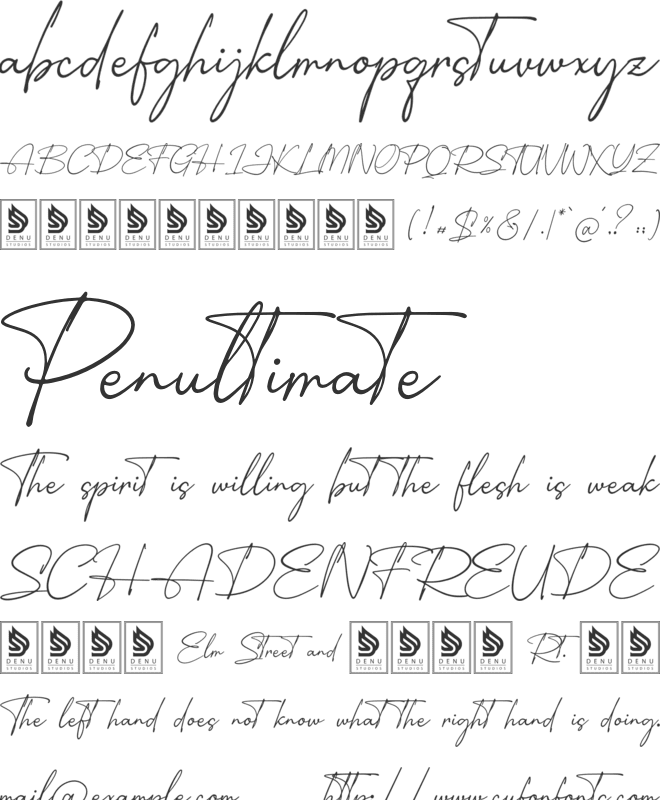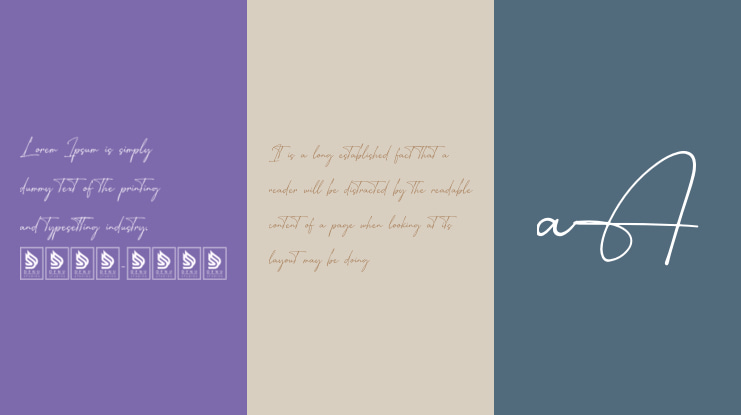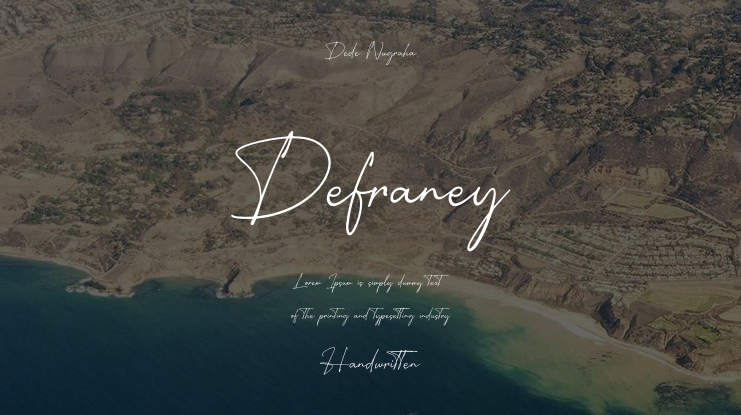
Defraney | Handwritten Signature product packaging, mugs, quotes, posters, shopping bags, t-shirts, book covers, name card, invitation cards, greeting cards, label, photography, watermark, special events, and all your other lovely projects that need a Handwritten Signature taste.